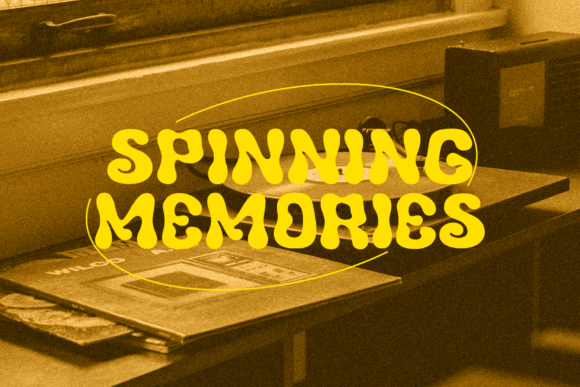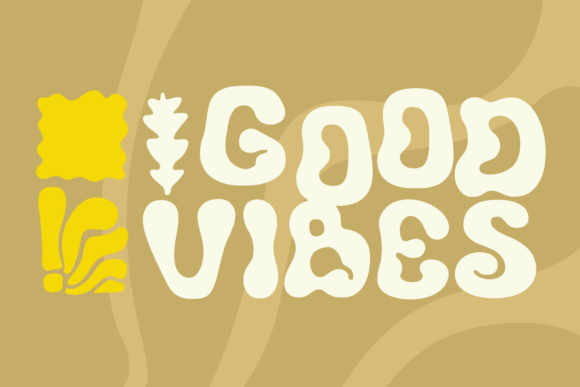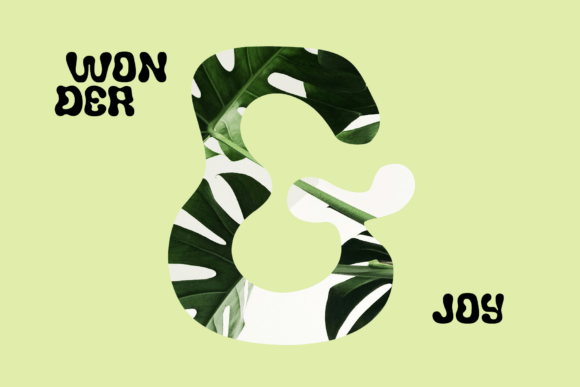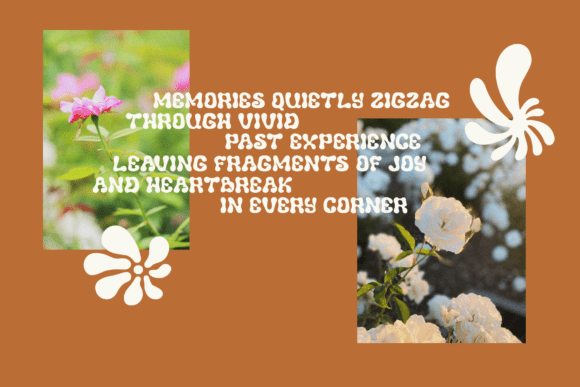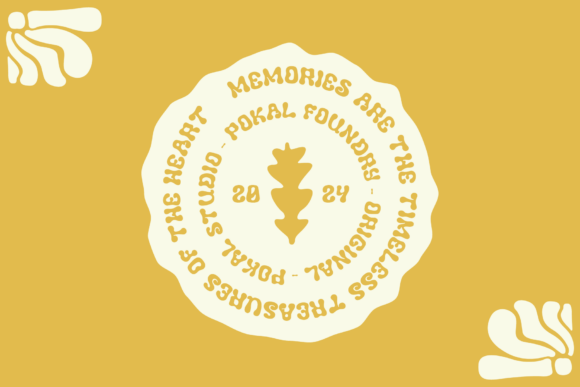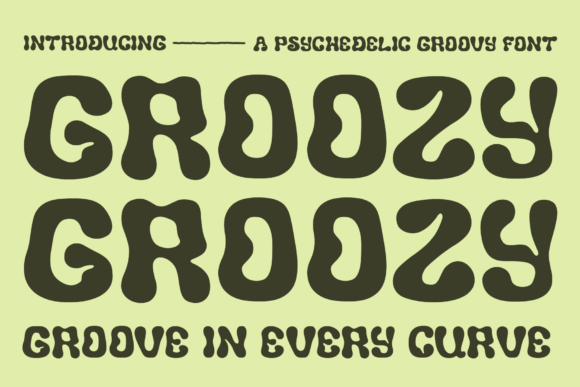
Bring Retro Vibes Back to Life with Groozy Font
Are you looking for a font that can add a touch of retro charm to your designs? Look no further than Groozy, a bold and playful psychedelic display font inspired by the funky 70s. With its wavy, organic letterforms and groovy curves, this typeface is perfect for designers and crafters who want to bring a little bit of nostalgia to their work.
The Inspiration Behind Groozy
Groozy is a font that is deeply rooted in the psychedelic art movement of the 1970s. During this time, designers and artists were experimenting with new and innovative ways to create visually striking graphics. The result was a distinctive style that featured bold colors, wavy lines, and playful typography. Groozy captures the essence of this era with its chunky, fluid shapes and groovy curves.
Groozy is a versatile font that can be used for a wide range of design projects. Whether you’re creating a psychedelic poster, a funky retro logo, or a groovy merch design, this font is sure to add instant character and vintage charm. Some of the design projects that Groozy is perfect for include:
- Psychedelic posters & album covers
- Retro 70s branding & packaging
- Funky social media graphics
- Groovy T-shirt & merch designs
- Bold, eye-catching headlines
What Makes Groozy So Special?
So, what sets Groozy apart from other fonts? Here are just a few things that make this font so special:
- Wavy, organic letterforms: Groozy features wavy, organic letterforms that give it a playful and carefree feel.
- Groovy curves: The curves in Groozy are smooth and fluid, giving the font a sense of movement and energy.
- Chunky, fluid shapes: The shapes in Groozy are chunky and fluid, making it perfect for bold, eye-catching designs.
- Retro vibe: Groozy has a distinct retro vibe that is sure to transport your designs back to the funky 70s.
How to Use Groozy in Your Designs
Using Groozy in your designs is easy. Here are a few tips to get you started:
- Pair it with a bold color scheme: Groozy looks best when paired with a bold, bright color scheme. Try using it with colors like pink, blue, and yellow to really make your design pop.
- Experiment with different textures: Adding textures to your design can really make Groozy stand out. Try using it with textures like glitter, tie-dye, or denim to give your design a more retro feel.
- Use it for headlines and titles: Groozy is perfect for headlines and titles. Use it to add a bold, eye-catching element to your design.
If you’re looking for a font that can add a touch of retro charm to your designs, look no further than Groozy. With its wavy, organic letterforms and groovy curves, this font is perfect for designers and crafters who want to bring a little bit of nostalgia to their work. Whether you’re creating a psychedelic poster, a funky retro logo, or a groovy merch design, Groozy is sure to add instant character and vintage charm. So why wait? Download Groozy today and start adding a touch of funk, flow, and retro soul to your designs!